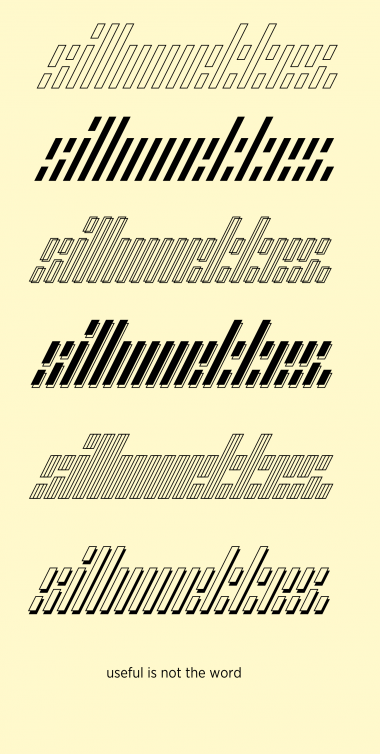
Artificial Stencil Italic
Isaac González (1saac)
Italic Version of Artificial Stencil
You're OK-
Oh. So good.
Too difficult for me again here !
Is this awesome, or awesome?
I see
Hard to read? Don't you mean impossible, LOL!
Very decorative, quite cool.
Legible if you know what you are looking at ;) These are outlines ...
I definitely
squint
with this font ;-P
first one says "artificial stencil italic." still working on the second one... third is quite clearly "silhouettes"
Ok, I just saw your youtube link for the second: "press play fast forward nonstop we have the beaten path before us." I had most of it figured out, but the word "nonstop" is practically indecipherable.
reminds me of one of the HewlettPackard logos...